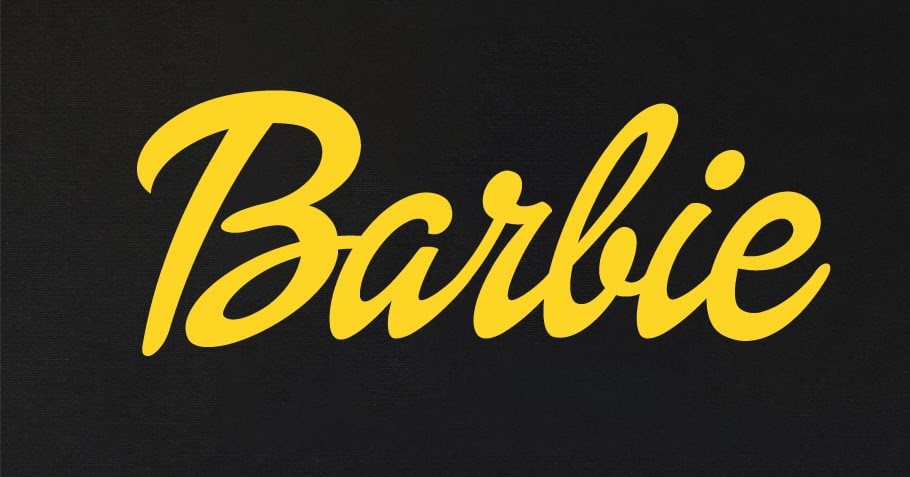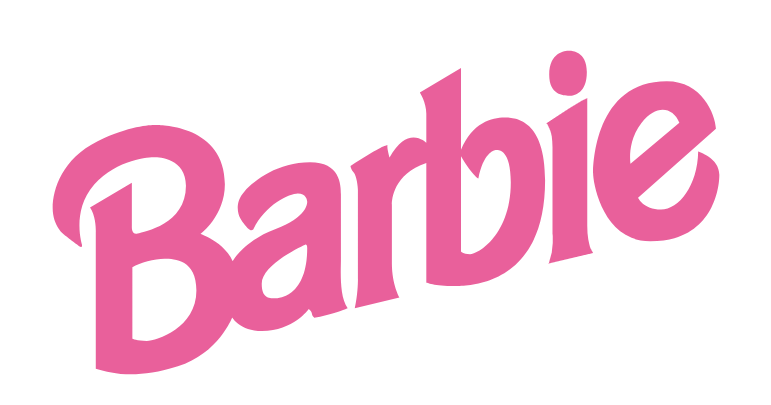
Barbie Font Generator Cursive
Additional barbie cursive font free generator. Every unique persona holds several genuine aspects in it.
Barbie font generator cursive. Ruth handler was the creator of this font in 1959. Download free quality fonts for your phone, windows, mac and linux devices. Categories, popular, designers, optional web font download and links to similar fonts.
Cursive letters as the name suggests are writing letters in curved forms. Additional barbie cursive font free generator. Home for the best free fonts.
Cursive font generator will let you have simple text or font into multiple variations of cursive writing text. 5 out of 5 stars. However, fans can make do with the barbie medium, which is somewhat similar, or the barbie font family, which includes two fonts:
Although it’s a handwritten font, barbie font is a quite versatile font that works great in large and small sizes. Free barbie font that will. However, for different languages, cursive writing can mean differently, for example, for eastern asian languages like chinese, cursive writing focuses more on the formation and connectedness of strokes within an individual character while for latin, cyrillic and arabic.
Along with all other factors the typeface used in the emblem of barbie contains its own personal importance. 5 out of 5 stars. Free barbie font that will.
Ruth handler was the creator of this font in 1959. This handwritten font is a new modern typeface that without closed loops on the letters. Barbie handwritten script font is a fresh handcrafted unique script typeface with a gorgeous handwritten style.
Free barbie font that will. There is a cursive font using in it which attracts many designers to. Looking for cursive barbie fonts?
1727 search results for barbie cursive. Click to find the best 1 free fonts in the cursive barbie style. Additional barbie cursive font free generator.
Cursive font is a type of font which was first used back in the fifth century. Although it’s a handwritten font, barbie font is a quite versatile font that works great in large and small sizes. Here at fonts empire, we are distributing all font including with this typeface for free.
What we have found are fonts that are similar to the custom designed logo. Here at fonts empire, we are distributing all font including with this typeface for free. Every unique persona holds several genuine aspects in it.